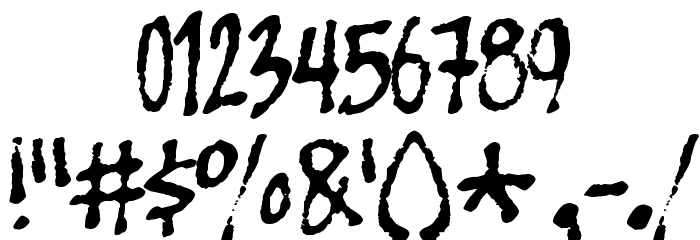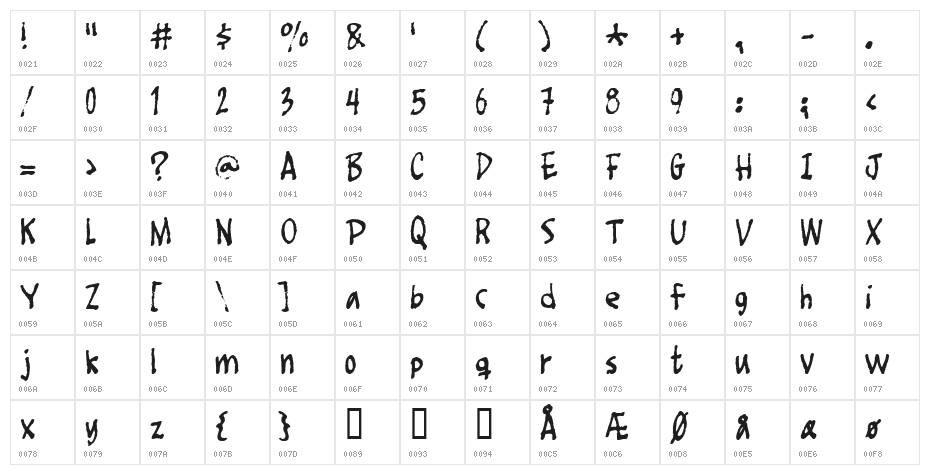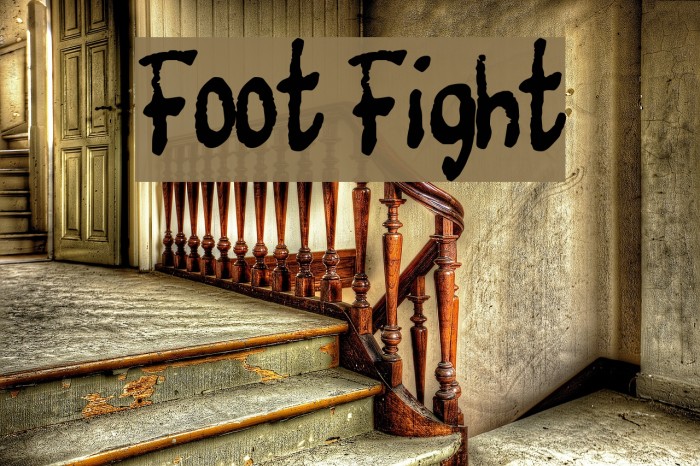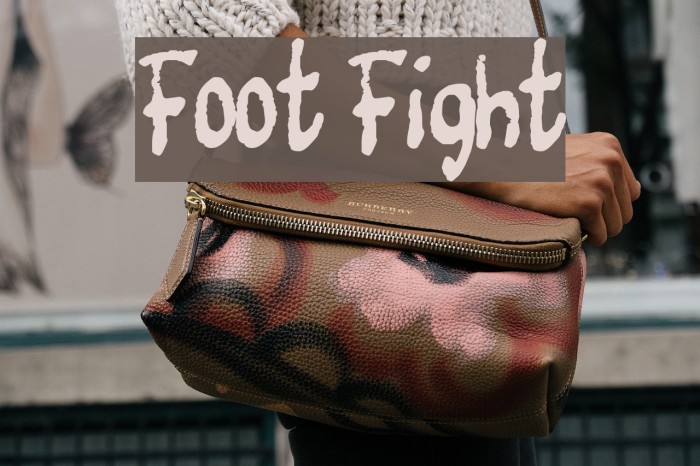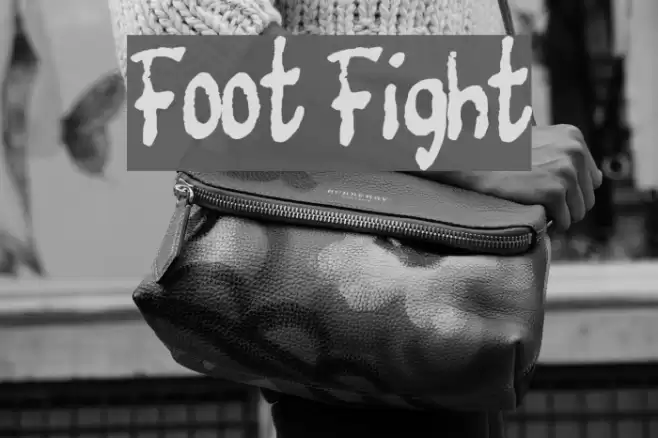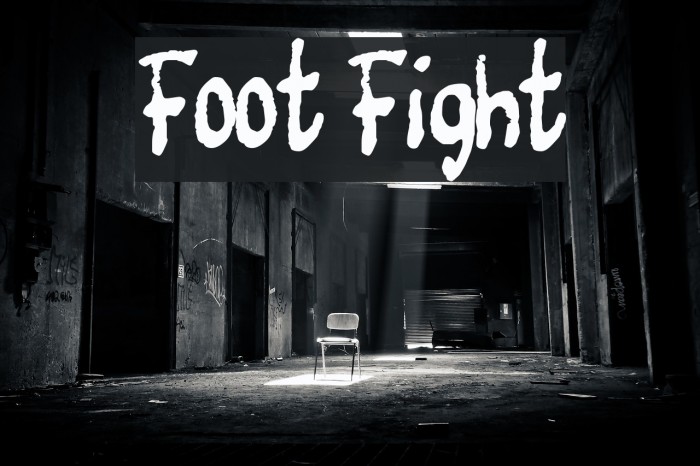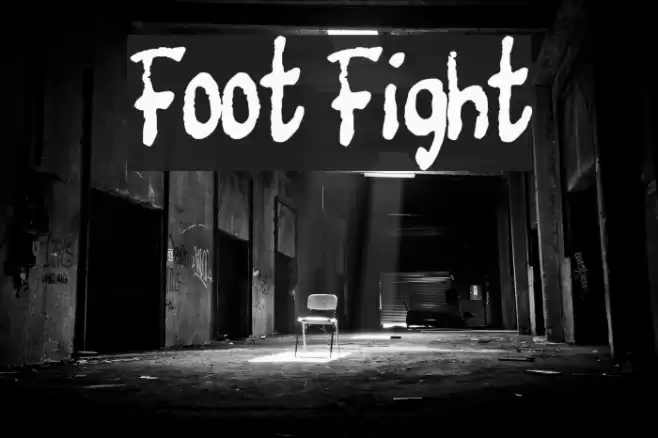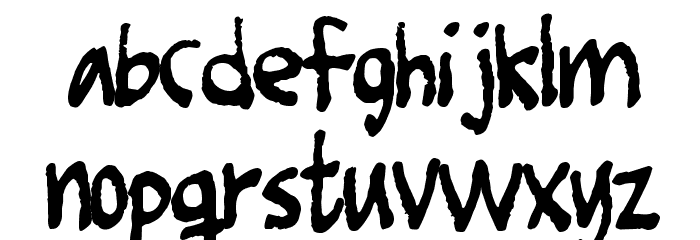
Foot Fight Font
Foot Fight Description
This font exhibits a bold and expressive handwritten style, characterized by its irregular and dynamic strokes. The letters have a playful and energetic appearance, with varying thicknesses that add a sense of movement and personality. The uppercase and lowercase letters maintain a consistent style, while the numbers and special characters integrate seamlessly with the overall design. The font's rough edges and uneven lines give it a raw and organic feel, making it stand out in any design project. Its unique style is perfect for conveying a sense of creativity and individuality.
| Proposed Projects | Ideal for creative projects such as posters, album covers, and branding materials that require a personal and artistic touch. |